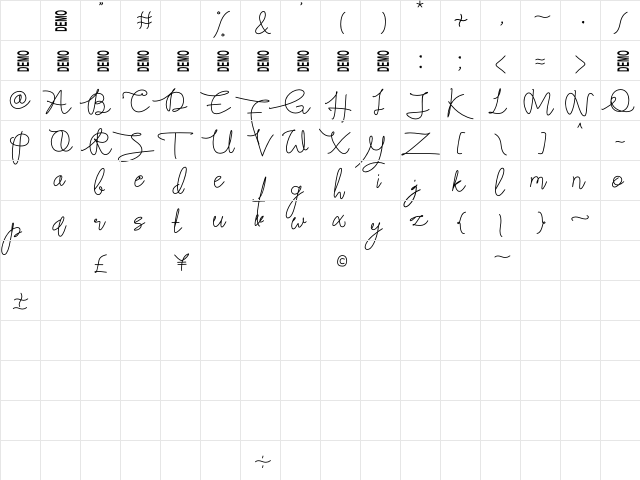
Complete Butter West Demo Regular glyph index. Displaying only characters natively supported by Butter West Demo Regular font.
Butter West Demo is a composed and adaptable typeface that performs quietly and consistently across a wide range of design contexts.